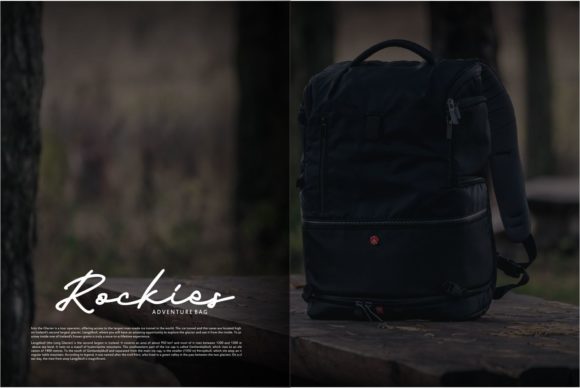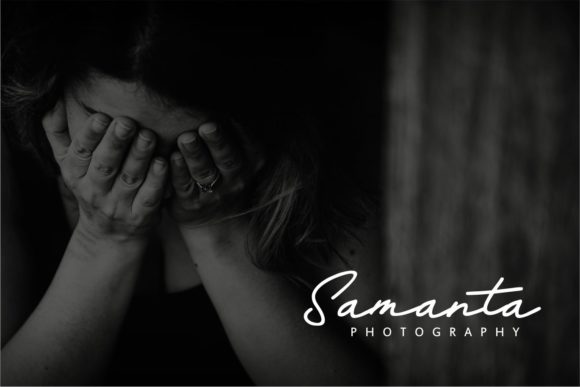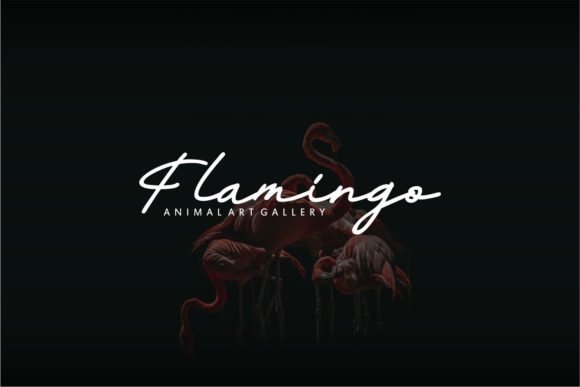
HomeScript FontsBaladewa Font Script Fonts Baladewa Font FacebookXPinterestWhatsApp Baladewa Font Poster 2 Baladewa Font Poster 3 Baladewa Font Poster 4 Baladewa Font Poster 5 About Baladewa Font Baladewa is a light and smart handwritten font with a unique feel. Get inspired by its unique modern appeal. DOWNLOAD NOW People also explored Heatwood Font Winter Sunday Font Confident Font Riponlight Font Tag Mockup, Thank You Tag, PSD Template Josephine Font Memoriale Font Ariella Ritschild Font Underwater Font 312 0 TagsBaladewa Font Previous articleUnforgotten FontNext articleBrand Hole Font LEAVE A REPLY Cancel reply Comment: Please enter your comment! Name:* Please enter your name here Email:* You have entered an incorrect email address! Please enter your email address here Website: Save my name, email, and website in this browser for the next time I comment. Personal Use Free Special Day Personal Use Free Read more about this font Merak Personal Use Free Read more about this font Doriss Girls Family Personal Use Free Read more about this font 5cent Free Graffiti Personal Use Free Read more about this font BLOG How to Cut Any Font on Cricut: Convert a Font to SVG (Free) Turn any font into a clean SVG so it cuts crisp on Cricut - a quick 3-step workflow using a free font-to-SVG tool. Free Fonts Risk: Why Free Fonts Can Be Dangerous for Designers Elegant Wedding Invitation Fonts – Handwritten & Script Fonts How to Install and Use Fonts on Windows, macOS, and Web Projects